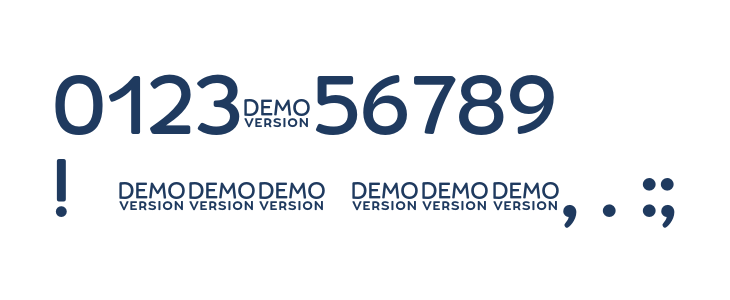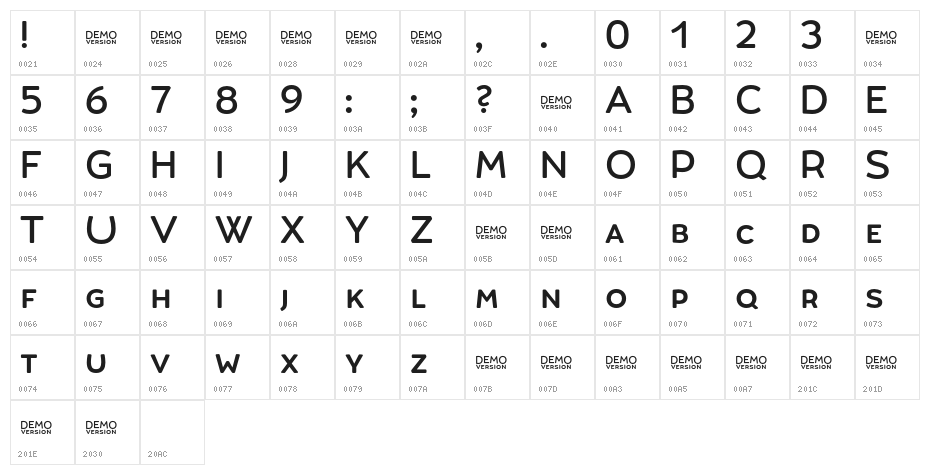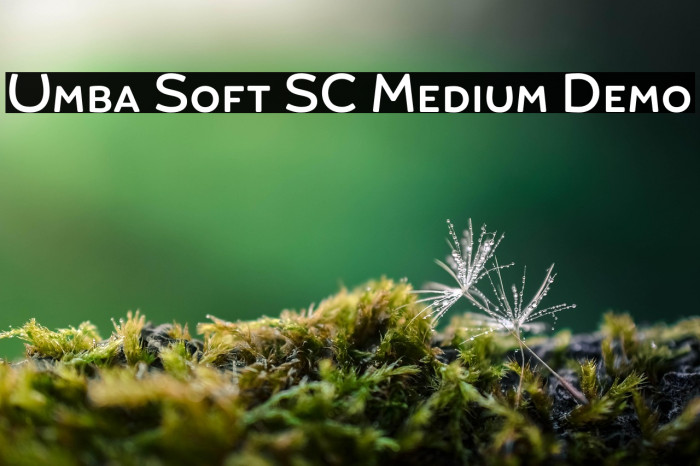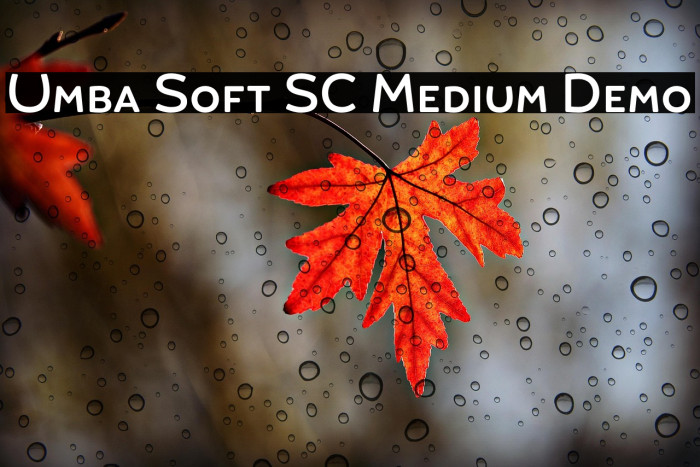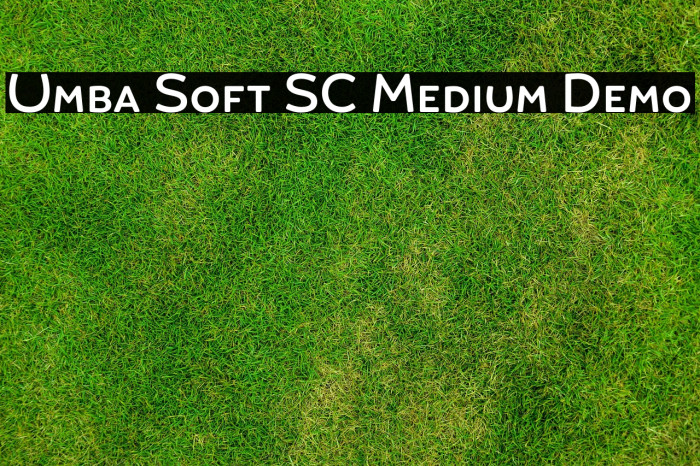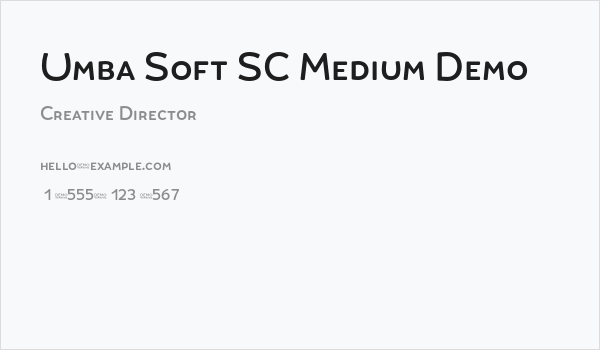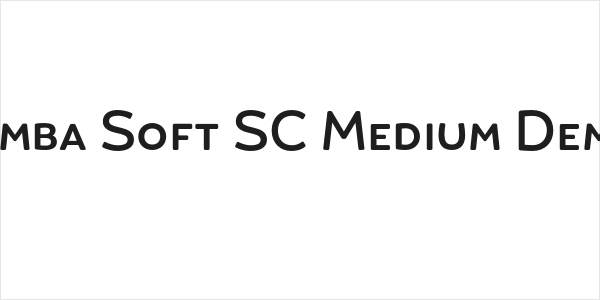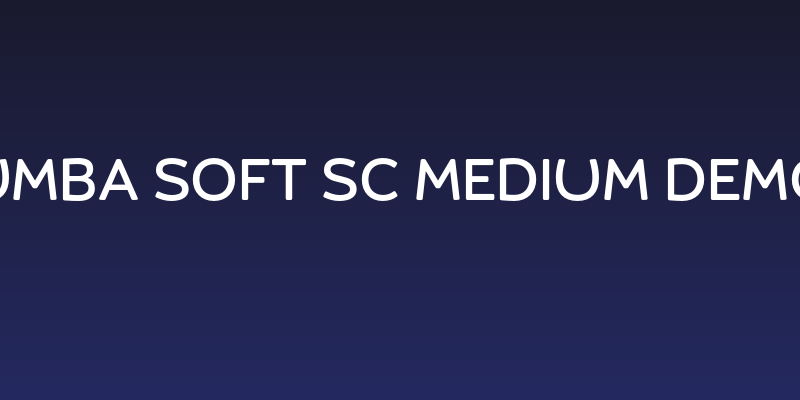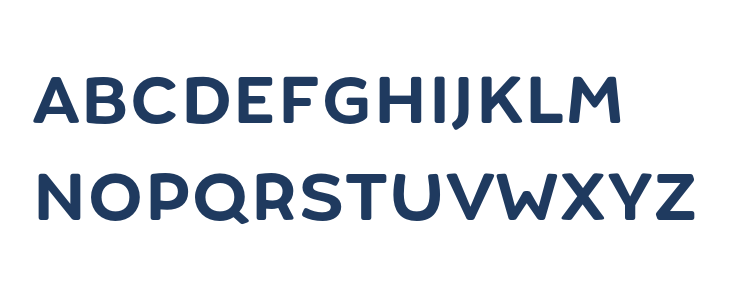
Umba Soft SC Medium Demo Font
Umba Soft SC Medium Demo Description
This font features a clean, modern design with rounded edges that give it a soft and approachable appearance. The characters are evenly spaced, contributing to a balanced and harmonious look. The uppercase letters are bold and prominent, while the lowercase letters maintain a consistent style, ensuring readability across different sizes. The numerals are clear and distinct, making them suitable for various applications. The special characters are designed to match the overall aesthetic, maintaining the font's cohesive look. This font is versatile, suitable for both digital and print media, and can be used in a variety of design projects.